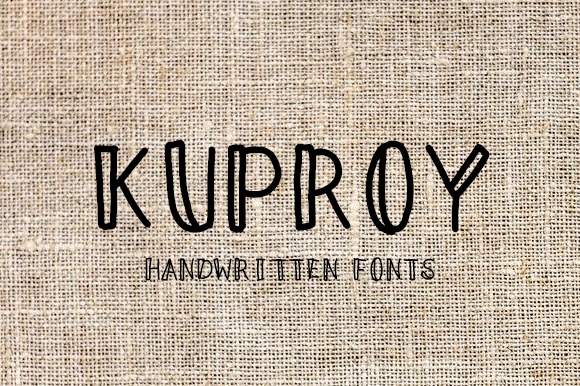
Kuproy Font
About Kuproy Font
Kuproy is a cute, quirky and friendly handwritten font. Its simple and playful style make this font incredibly adept to a wide range of designs both formal and non-formal.